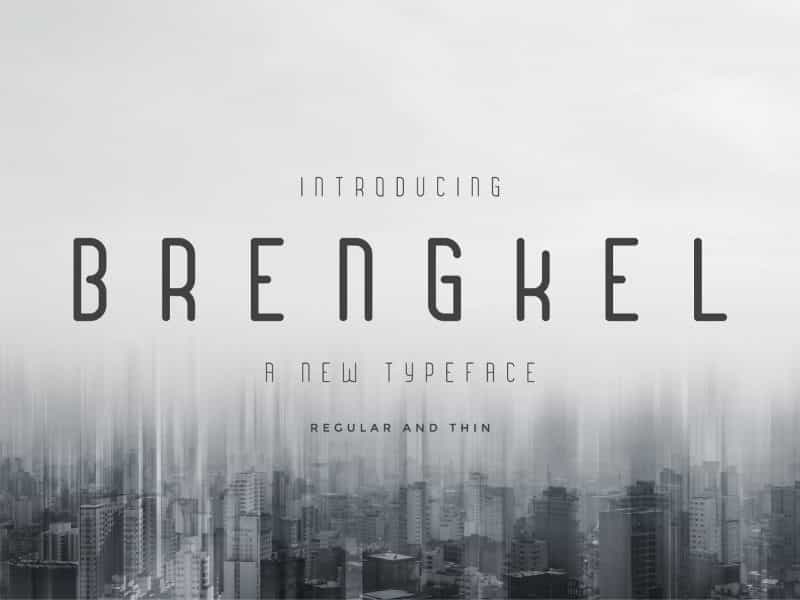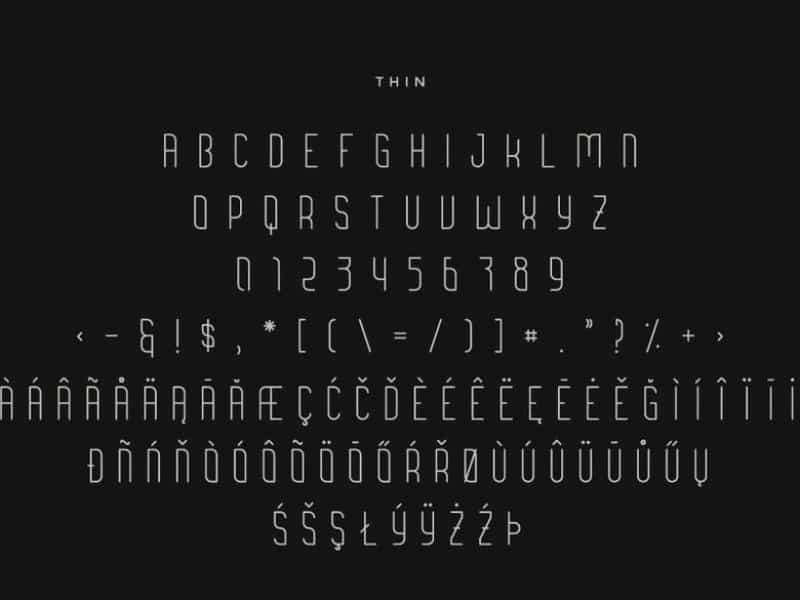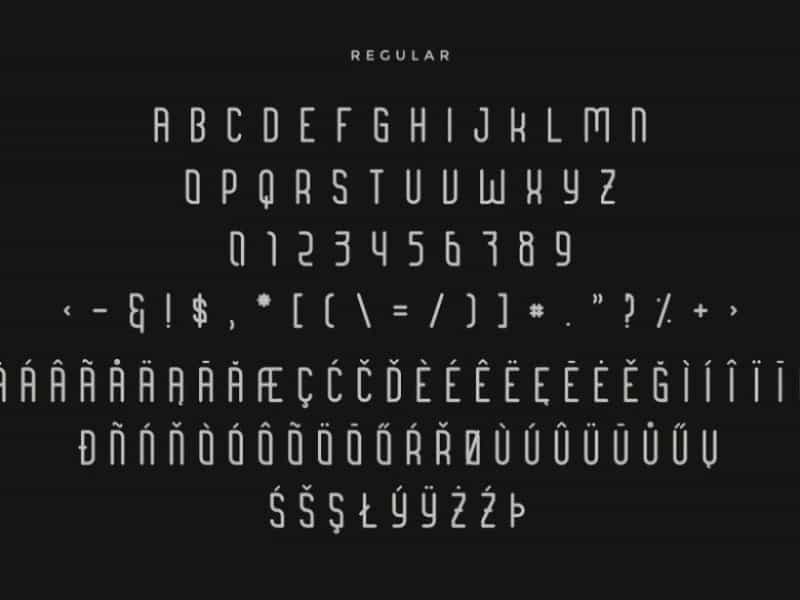
Discover Brengkel Typeface, part of the Sans Serif Display collection—a versatile and unique font perfect for adding a personal touch to your projects. Download it for free and enjoy crafting designs with style, from invitations to social media posts. This font is available exclusively for personal use, giving you the freedom to create without limits. Unlock your creativity with Brengkel Typeface today!
Introducing Brengkel Font. It is enabling you to make Logo, greeting cards, quotes, posters, branding, stationary and so on. They are basically used for the Art/ Design Project look pretty and trendy againFashionable when seen through a person’s lens of Personal Styling( P. S).